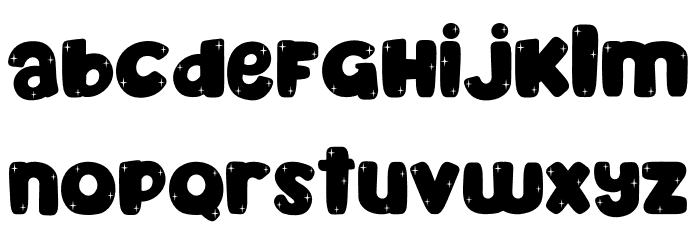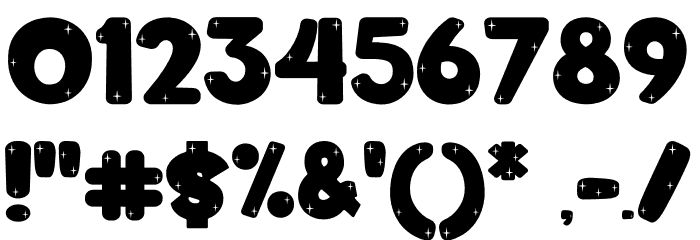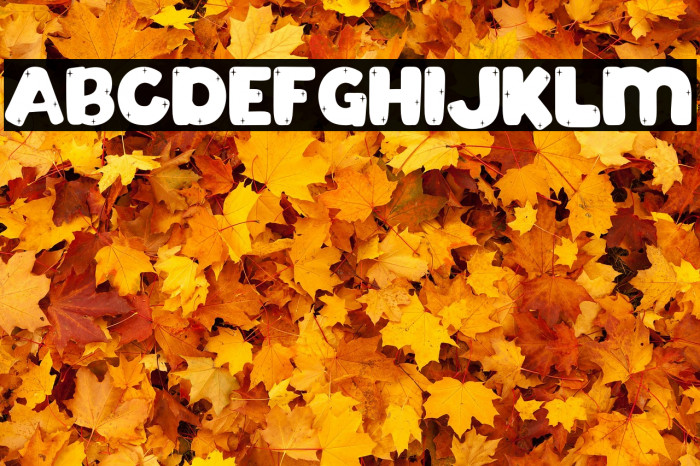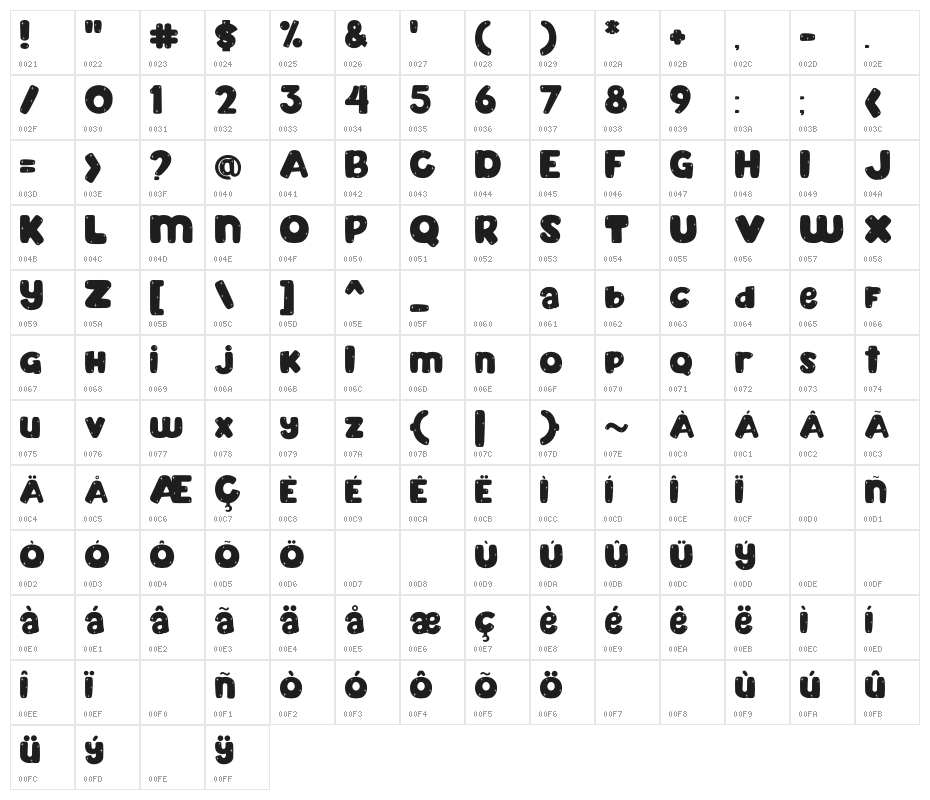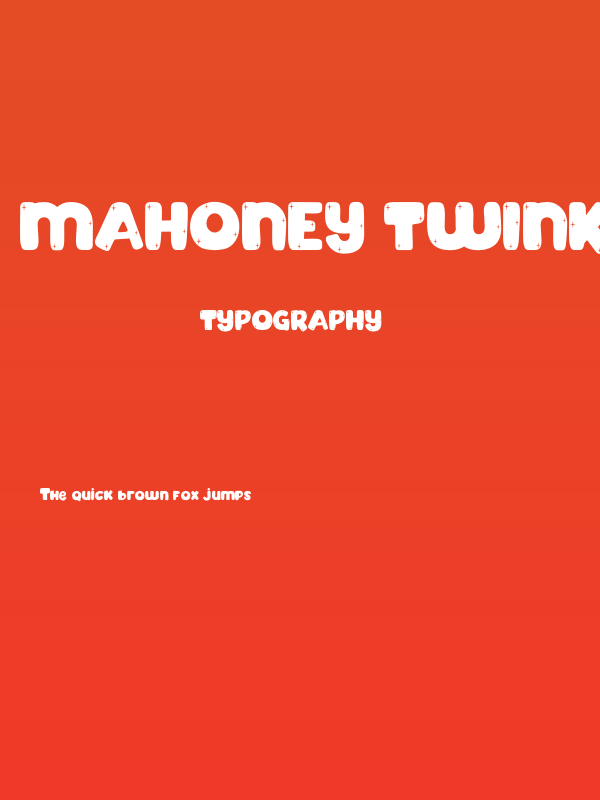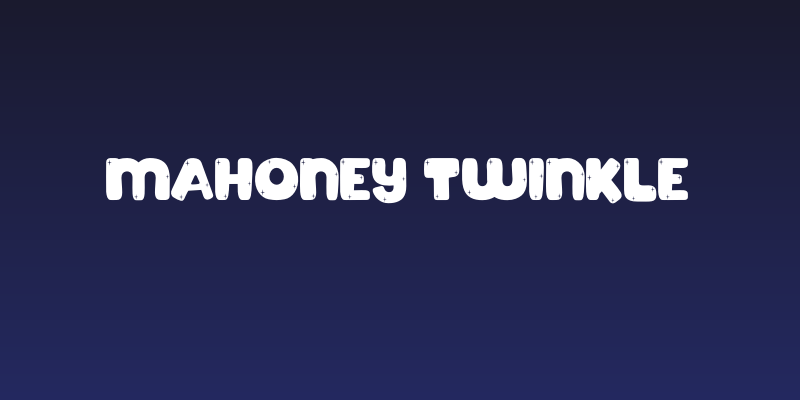
Mahoney Twinkle Font
This playful and decorative font features bold, rounded characters with a unique starry pattern embedded within each letter. The whimsical design is consistent across both uppercase and lowercase letters, as well as numbers and special characters. The font's thick strokes and rounded edges give it a friendly and approachable feel, while the star embellishments add a touch of magic and fun. This font is perfect for projects that aim to capture attention and convey a sense of joy and creativity.
A playful, starry-patterned decorative font with bold, rounded characters.
- Font: Mahoney Twinkle
- Proposed Projects: Ideal for children's book covers, playful branding, party invitations, and festive posters.